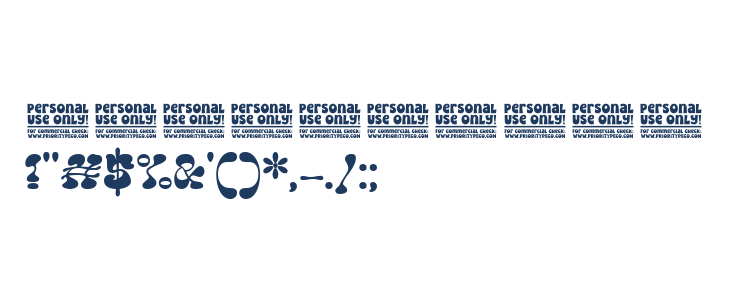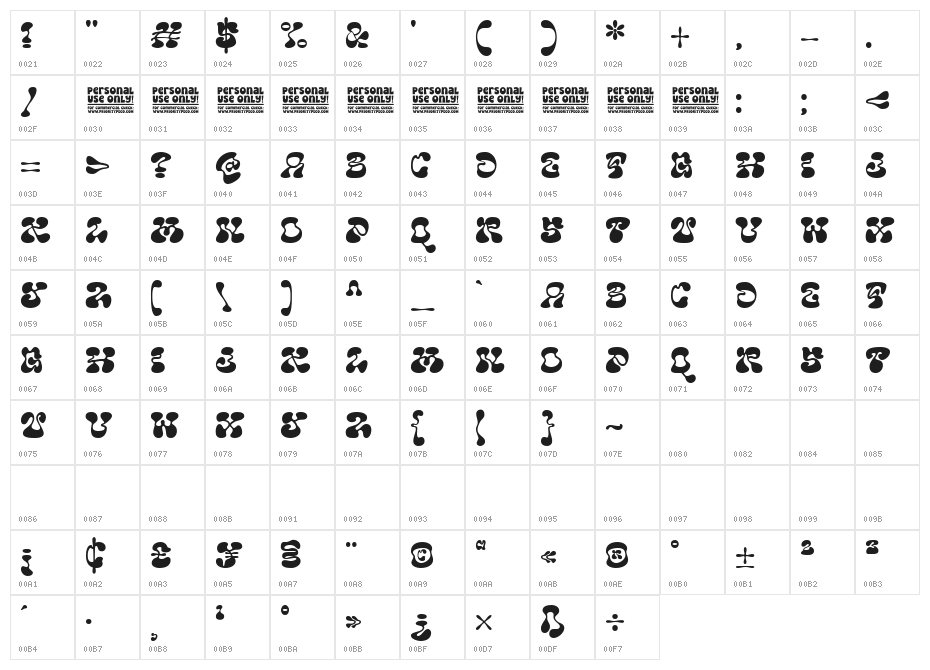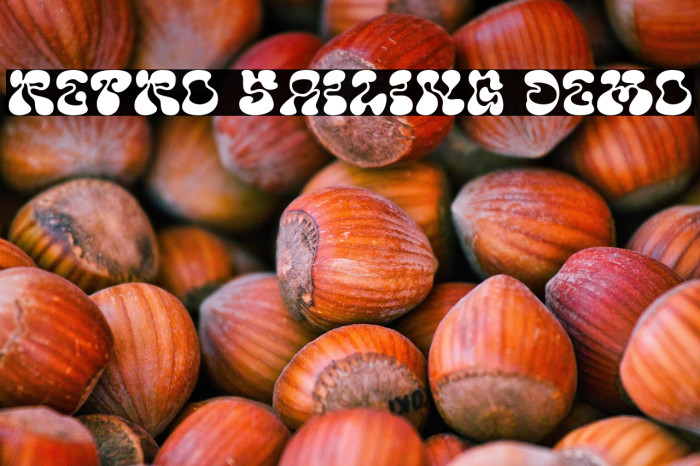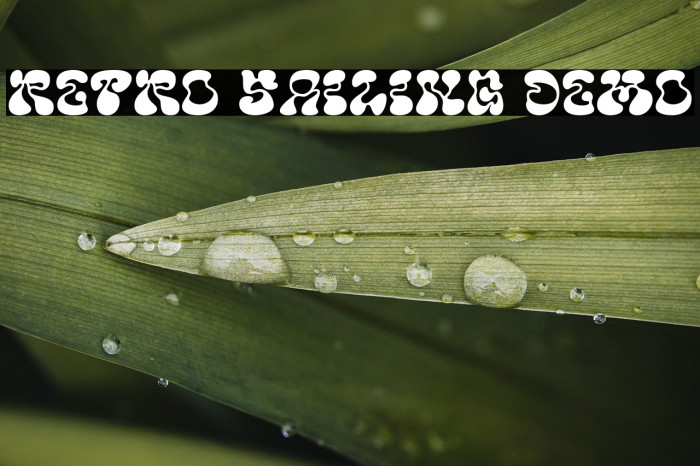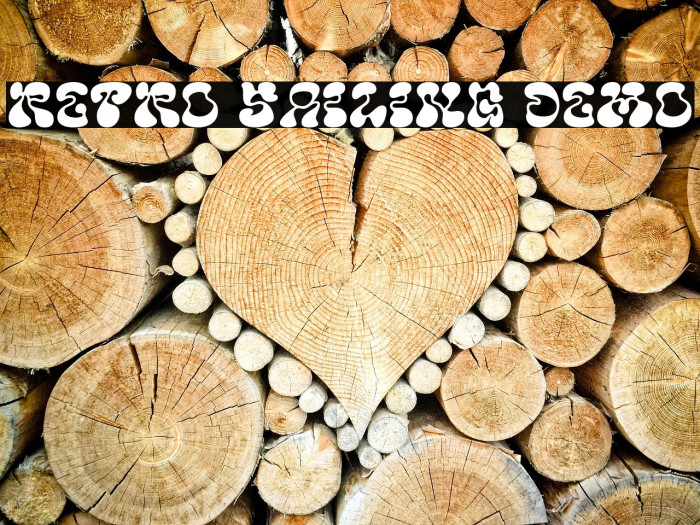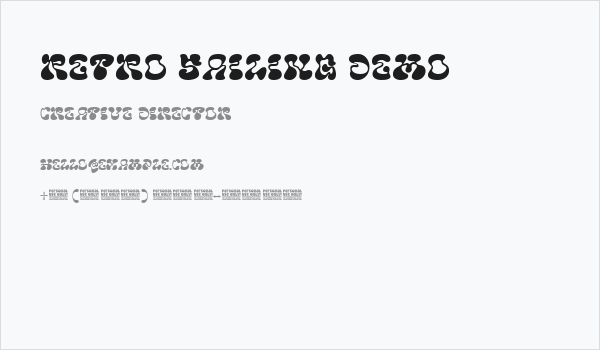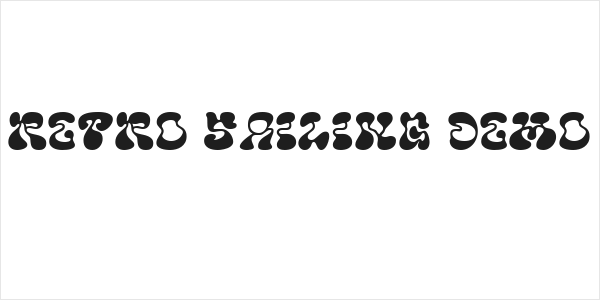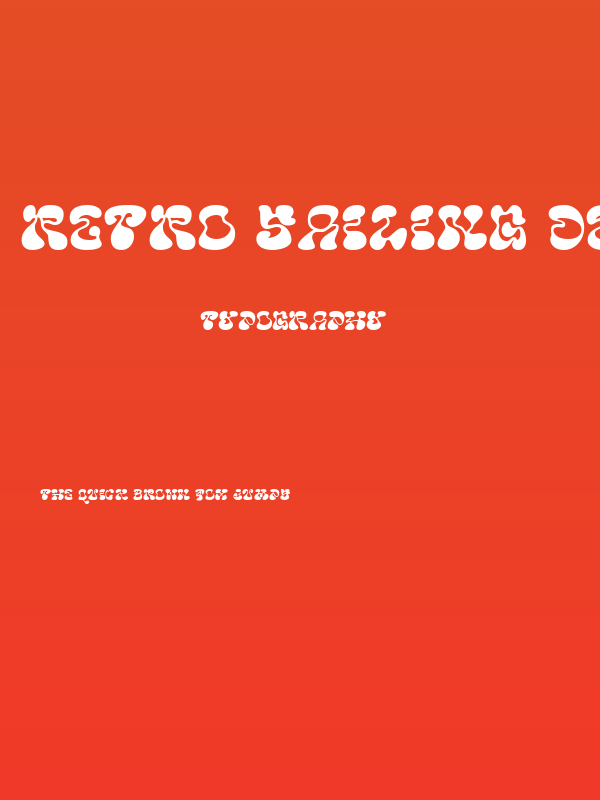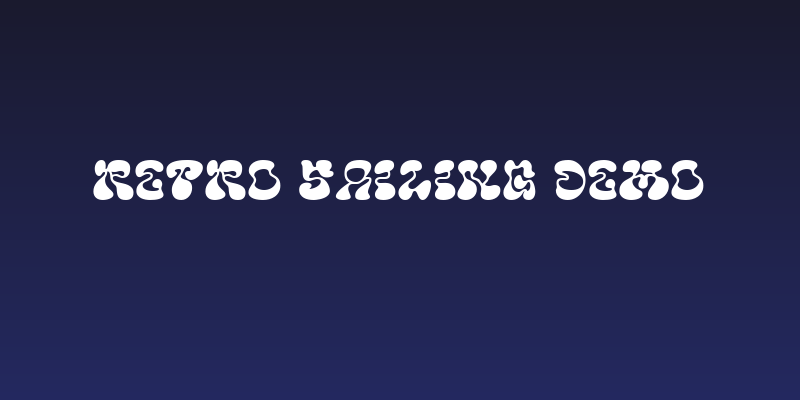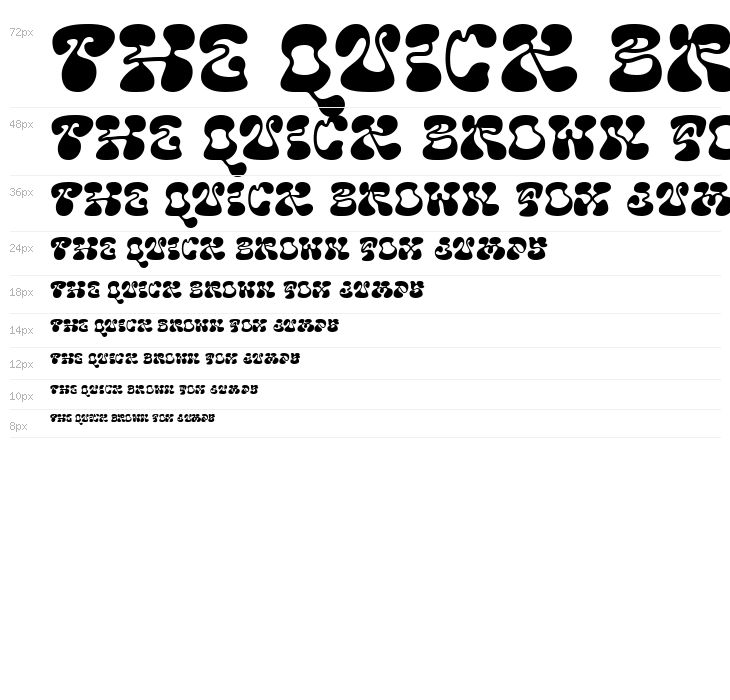
Retro Sailing DEMO Font
Retro Sailing DEMO Description
This font features a bold and playful design with a distinctly retro vibe. The characters are composed of thick, rounded shapes that give them a bubbly and whimsical appearance. The exaggerated curves and unique forms make each letter stand out, creating a sense of movement and energy. This style is reminiscent of 1960s and 1970s design, making it perfect for projects that aim to capture a vintage or nostalgic feel. The font's boldness ensures high visibility, making it suitable for eye-catching headlines or logos.
| Proposed Projects | Ideal for retro-themed posters, vintage branding, playful logos, and eye-catching headlines. |